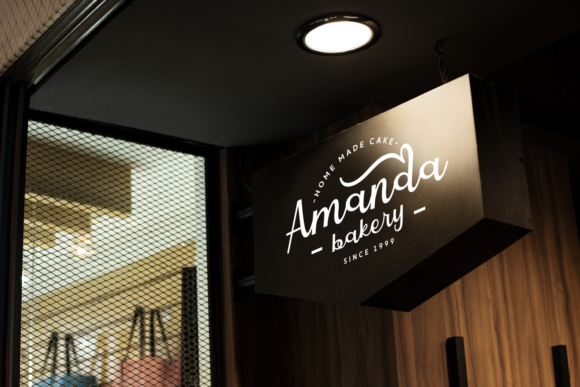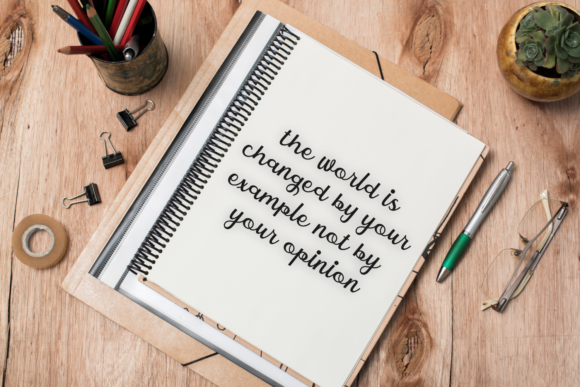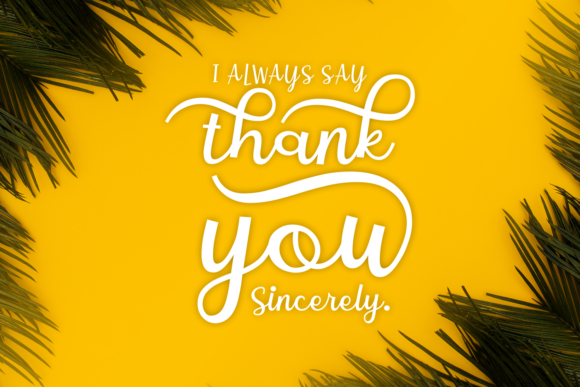
Charlote Earle Font
About Charlote Earle Font
Charlote Earle is a simple and sweet handwritten font with a beautiful feel. It will add a unique feel to any design project!